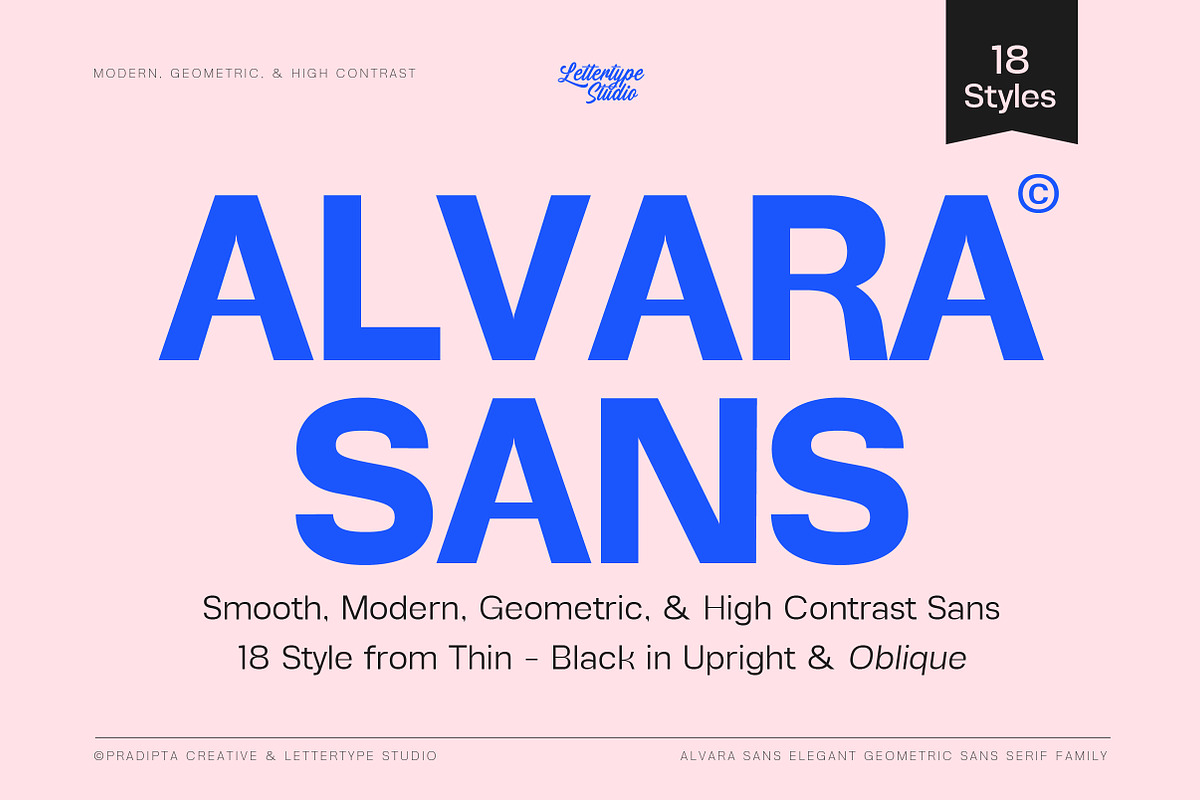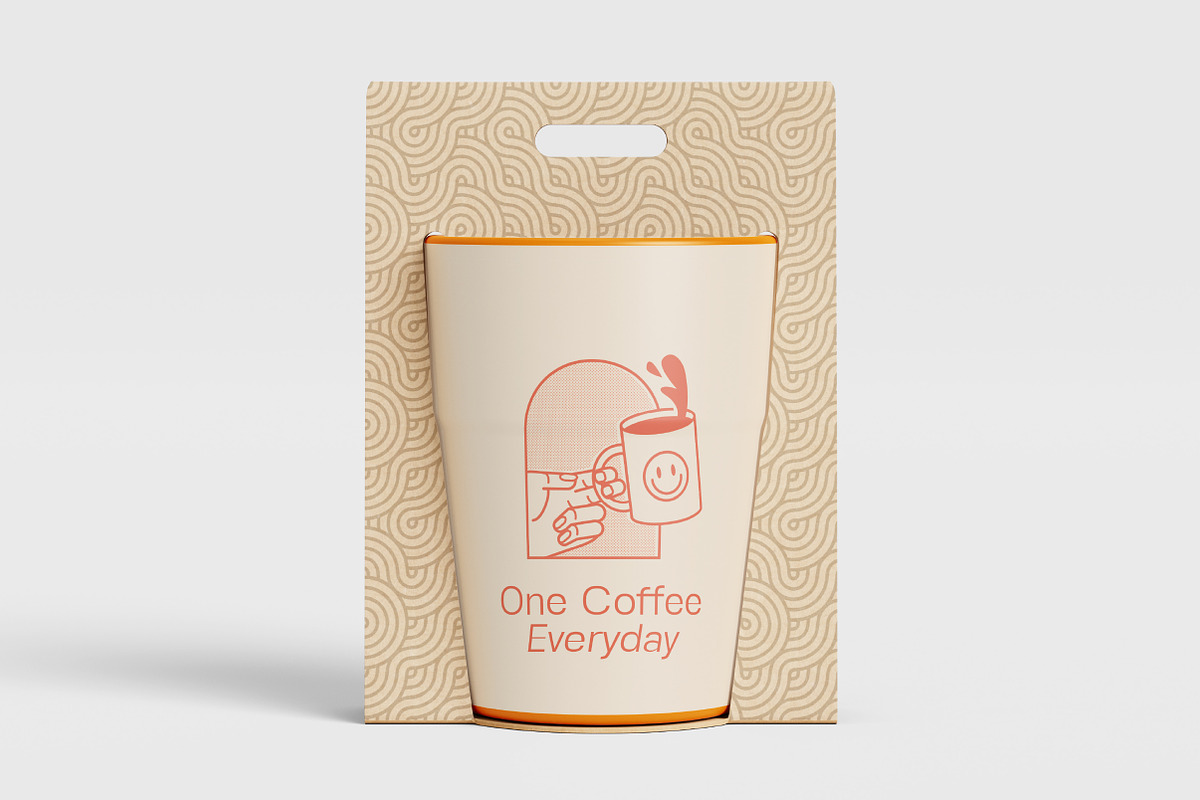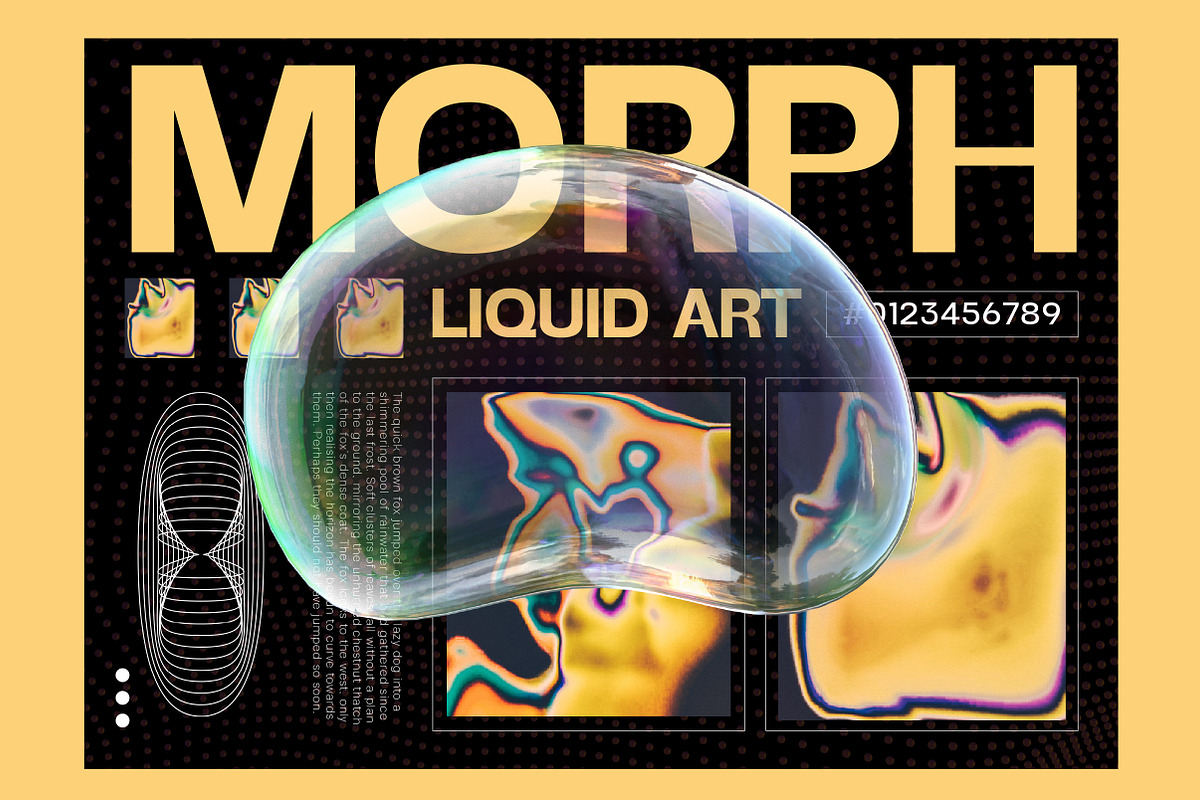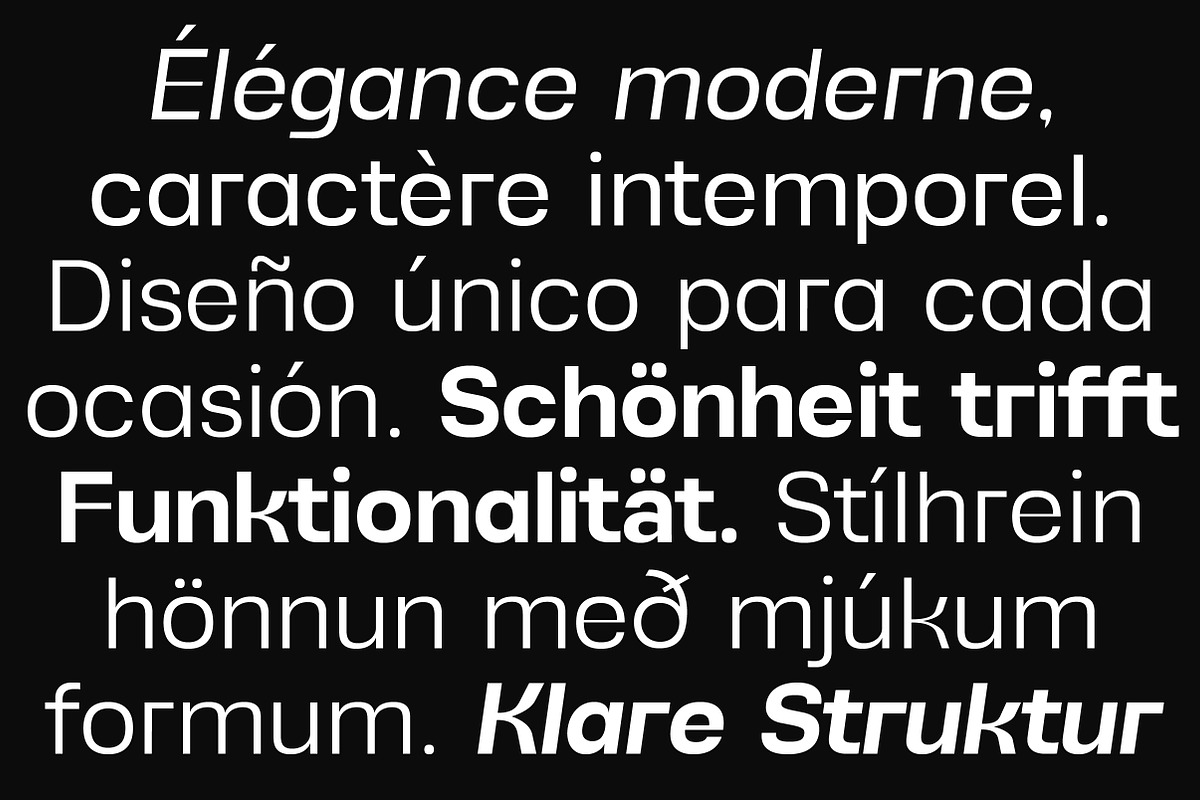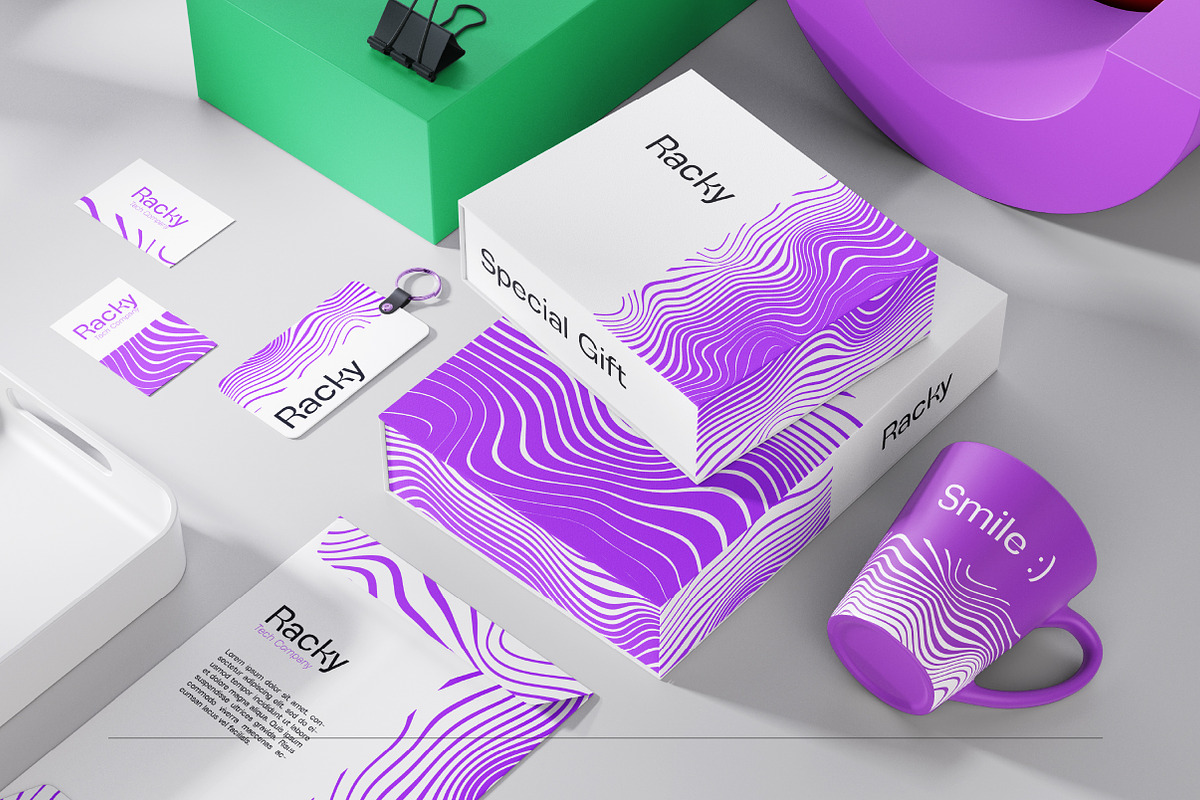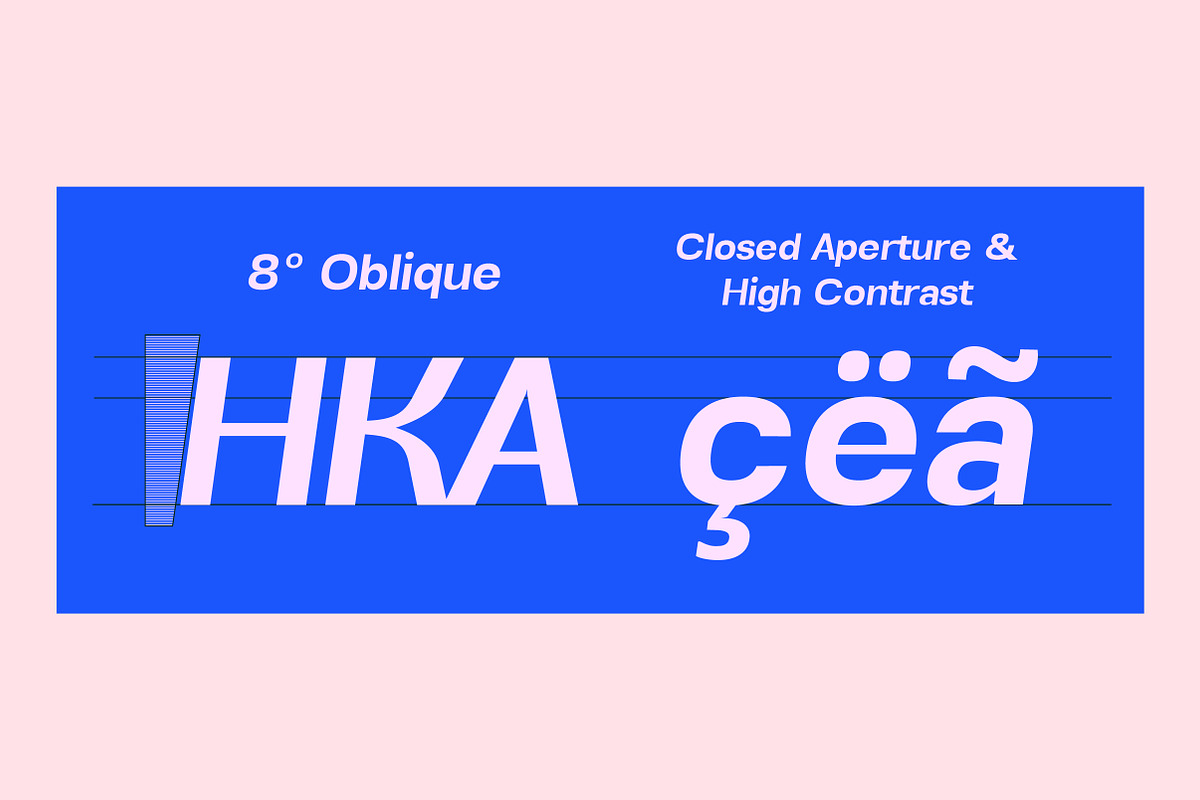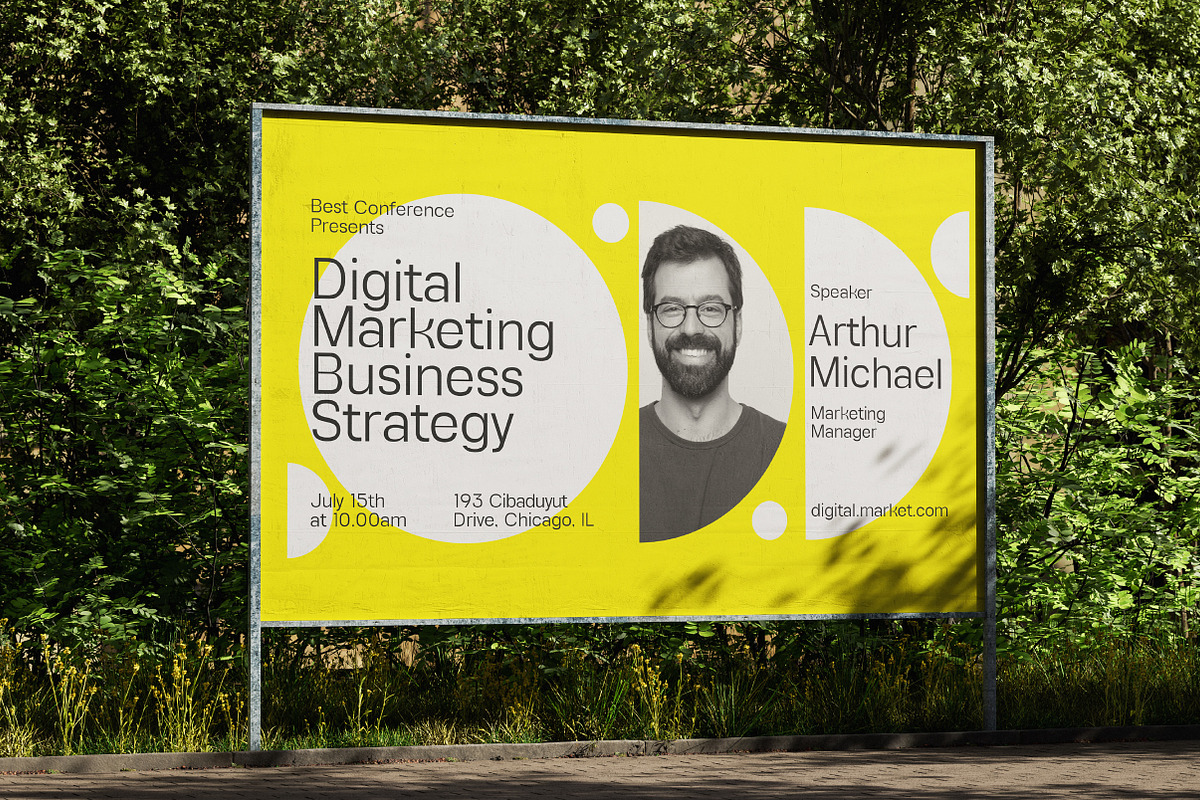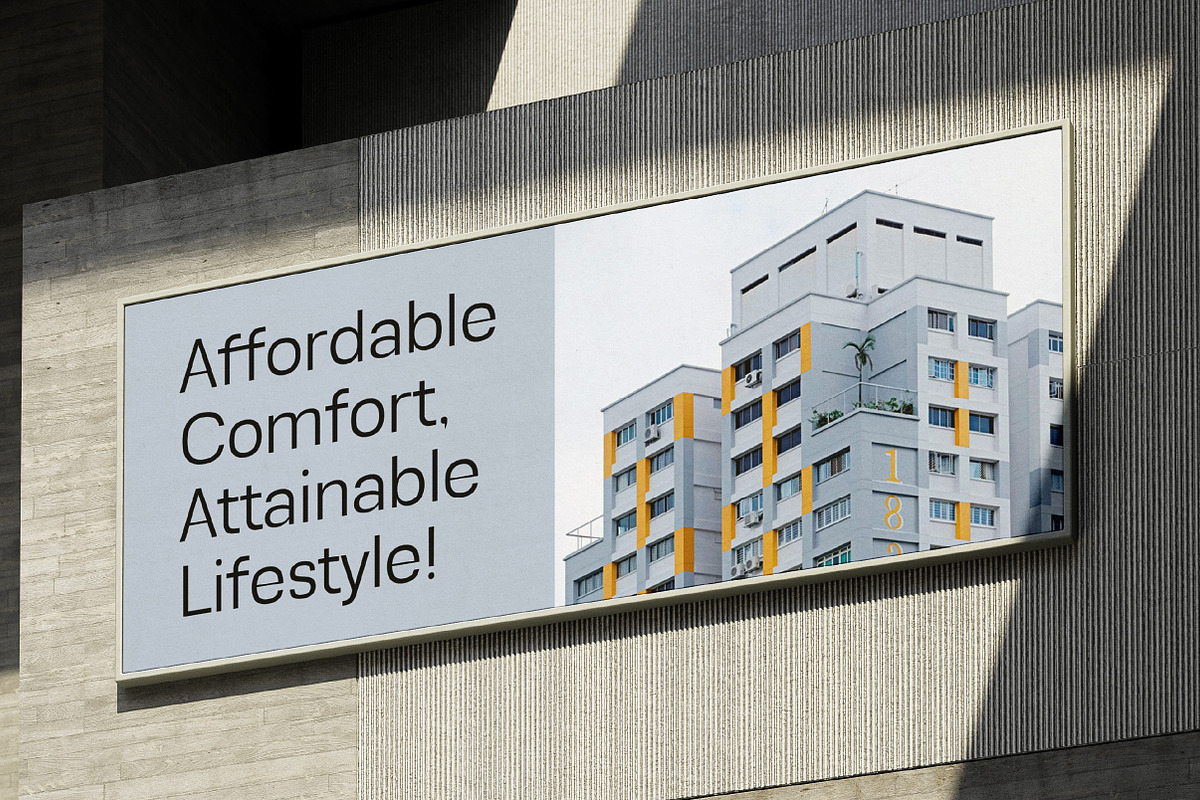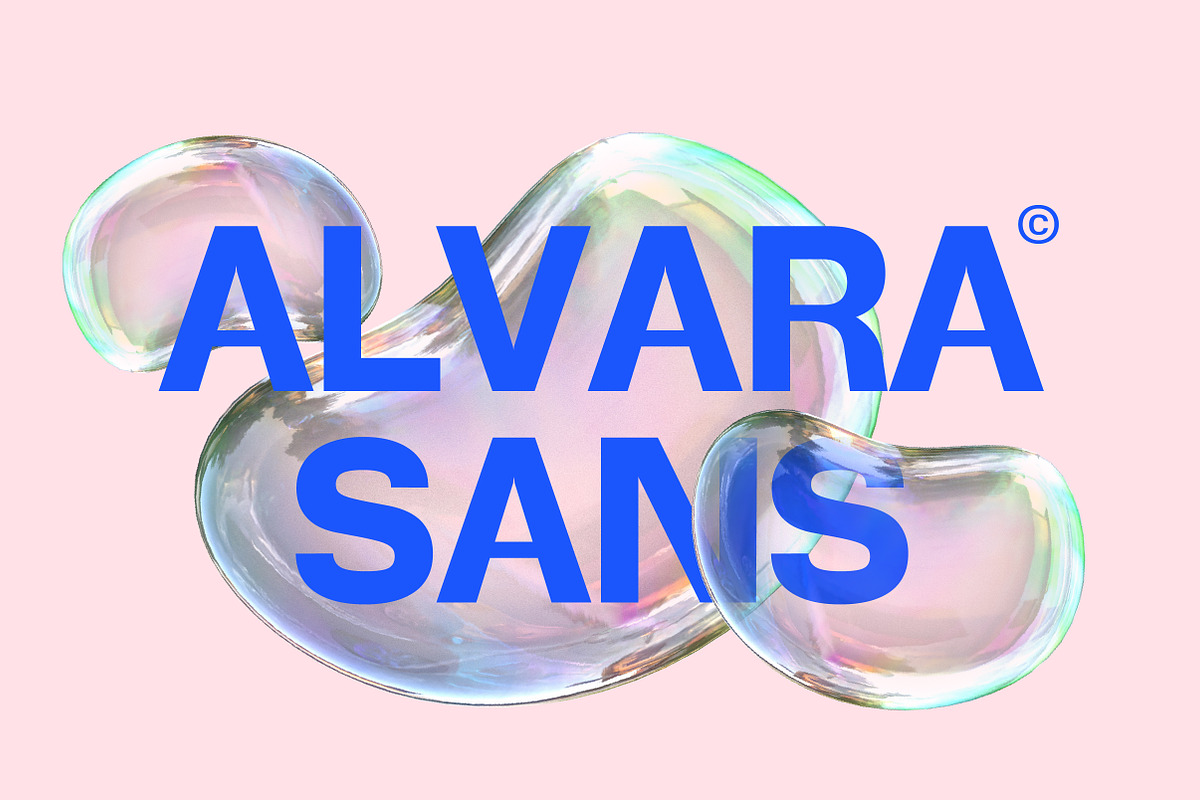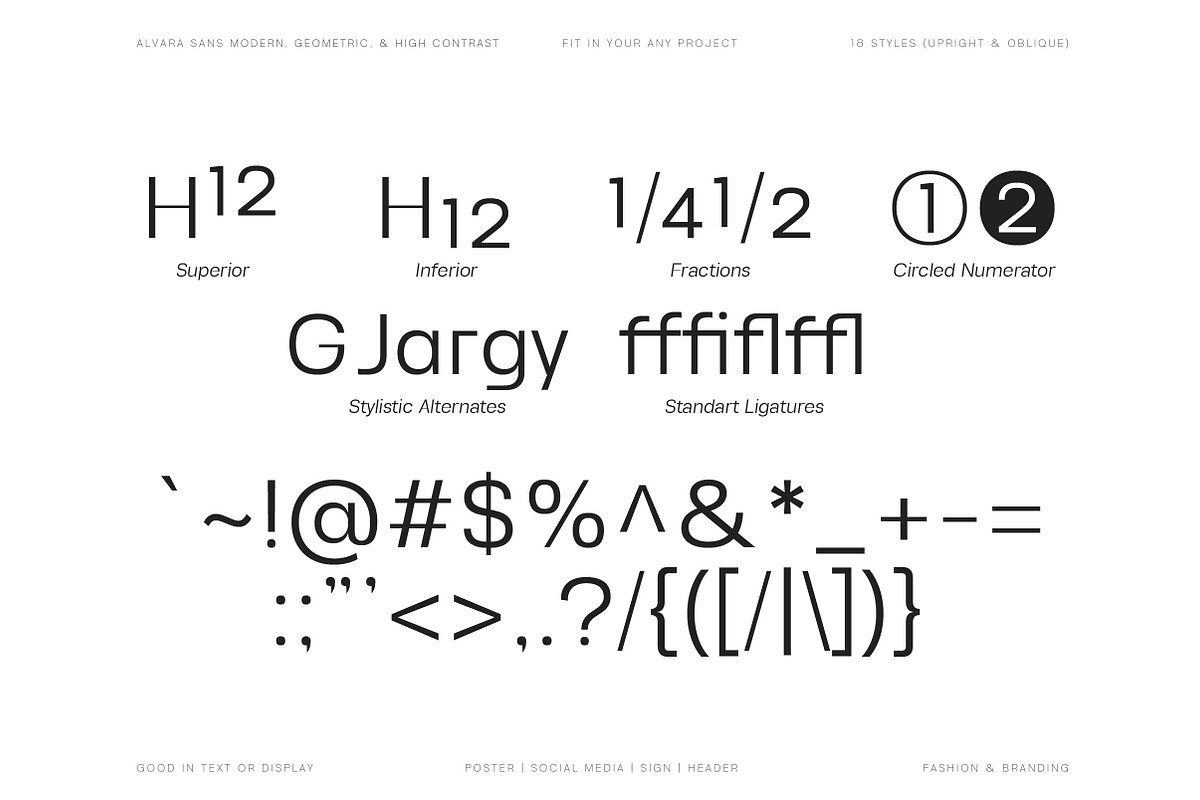
Alvara Sans High Contrast Family
Alvara is a sophisticated sans-serif font family that blends smooth geometry with a modern minimalist touch. With 18 carefully crafted styles ranging from ultra-thin to bold black, and matching obliques for each weight, Alvara offers perfect balance between form and function. Its soft curves, clean structure, and neutral tone with high contrast make it a powerful choice for branding, editorial design, packaging, digital interfaces, and corporate identity. Every detail is carefully designed to deliver high readability, versatility, and timeless professionalism across all media.
Ideal for both print and digital use, Alvara is your go-to modern workhorse with style. Whether you're designing for fashion, tech, architecture, or lifestyle, its elegant simplicity and harmonious rhythm bring a polished, contemporary presence to every layout. With advanced language support and precision in every glyph, Alvara empowers designers to create work that feels refined, international, and unmistakably modern.
Alvara Sans Features:
18 Styles
Upright & Oblique
506 Glyphs Total
270+ Languages Support
Corporate identity, branding & professional presentations
Editorial layouts, magazines & architectural design
Web UI/UX, digital products & clean dashboards
Fashion campaigns, lifestyle brands & modern packaging
Posters, typography systems & multilingual design projects